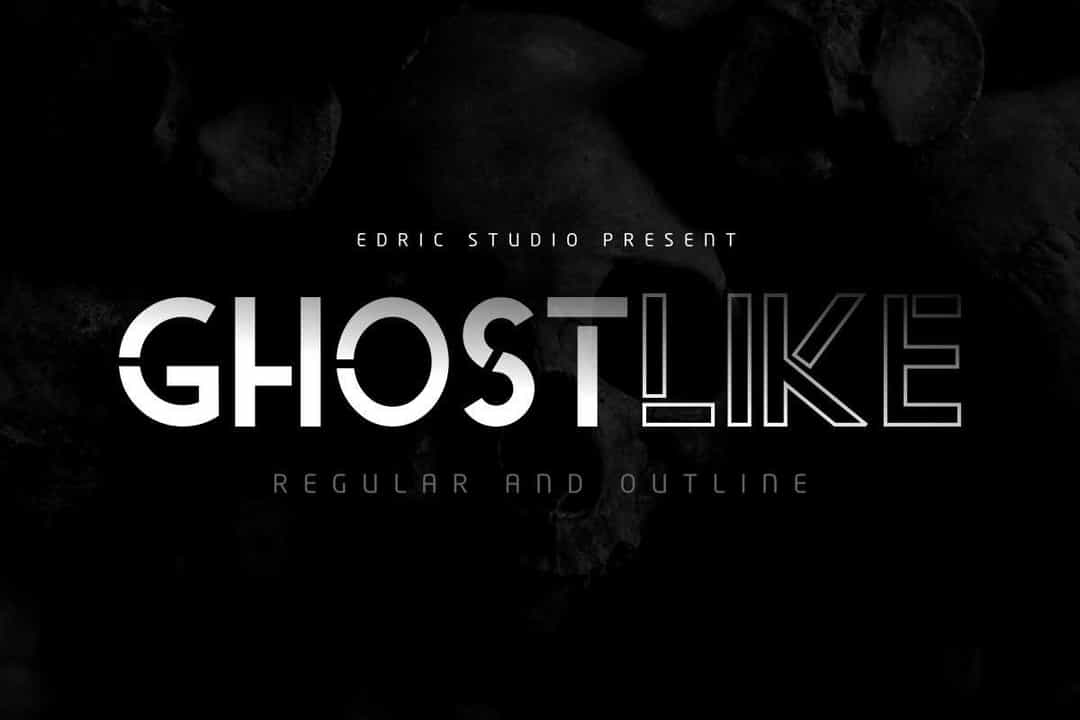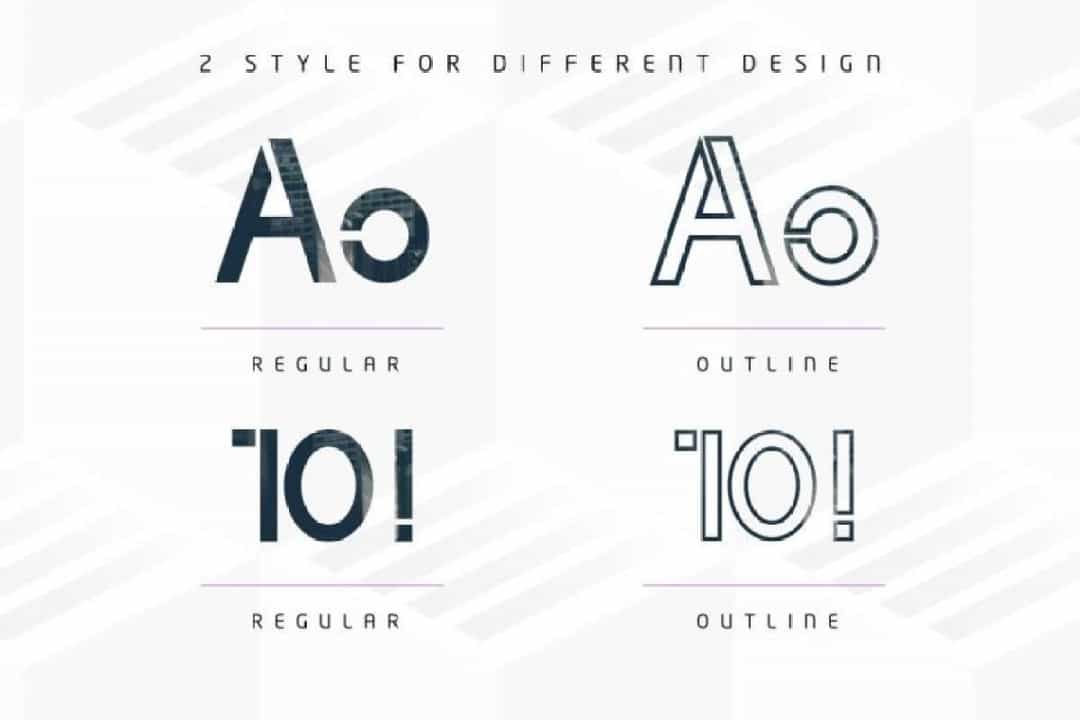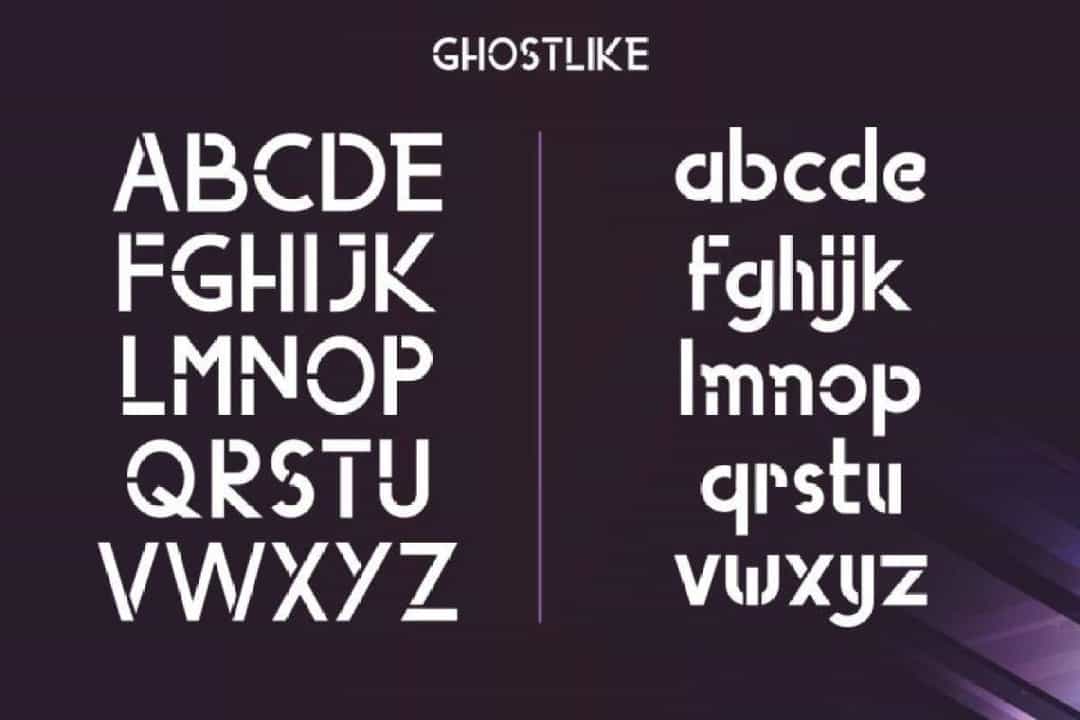
Discover Ghostlike Sans Serif Font, part of the Sans Serif Display Stencil Army collection—a versatile and unique font perfect for adding a personal touch to your projects. Download it for free and enjoy crafting designs with style, from invitations to social media posts. This font is available exclusively for personal use, giving you the freedom to create without limits. Unlock your creativity with Ghostlike Sans Serif Font today!
Ghostlike is an exclusive, furutistic sci-fi typeface, with a contemporary display style that is not adobe. It has a stunning characters set, flawlessly managed with the right spacing and kerning. The design of this font is include technology, future casual science fiction, business scientific, negative spaced and more.